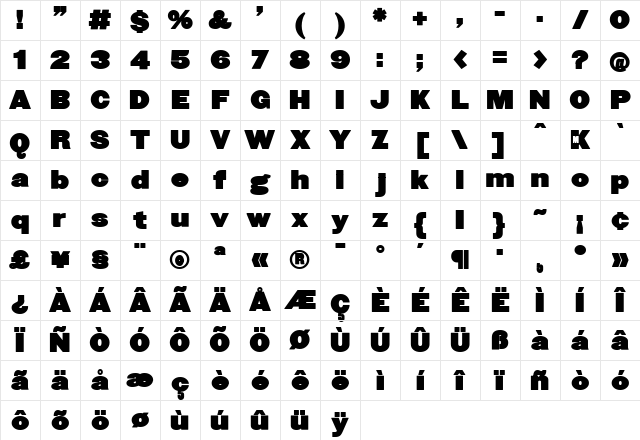
FatSansRound Regular Free Font
FatSansRound Regular
Complete FatSansRound Regular glyph index. Displaying only characters natively supported by FatSansRound Regular font.
Design Context for FatSansRound
FatSansRound softens its letterforms with rounded terminals, giving it an approachable, friendly quality that works well in consumer-facing and digital contexts.
Well-suited to UI design, mobile interfaces, and any brand that wants approachability without sacrificing clarity.
Font Pairing: Pairs well with a rounded or humanist sans for body copy, maintaining the friendly tone without relying on FatSansRound to carry extended reading.
Pro Tip: Use FatSansRound for UI elements, app interfaces, and anywhere a friendly, approachable tone needs to be maintained without sacrificing clarity.